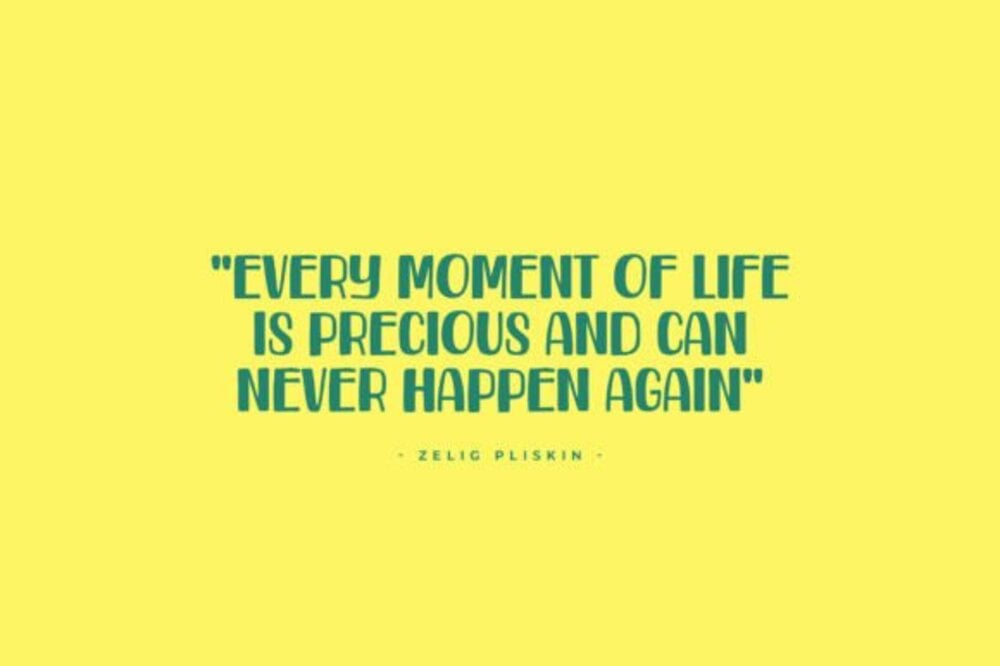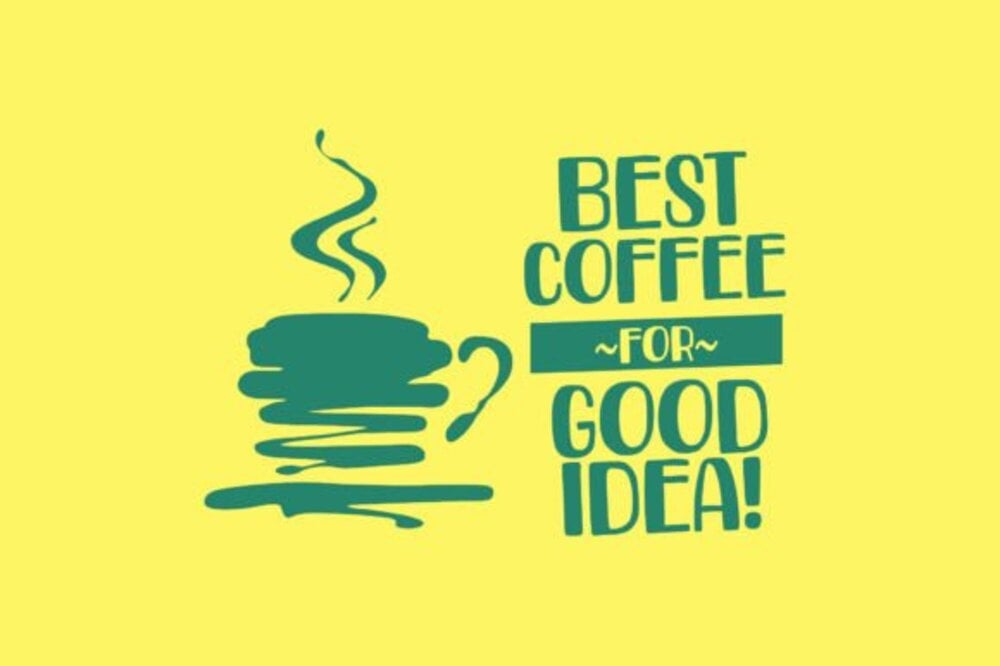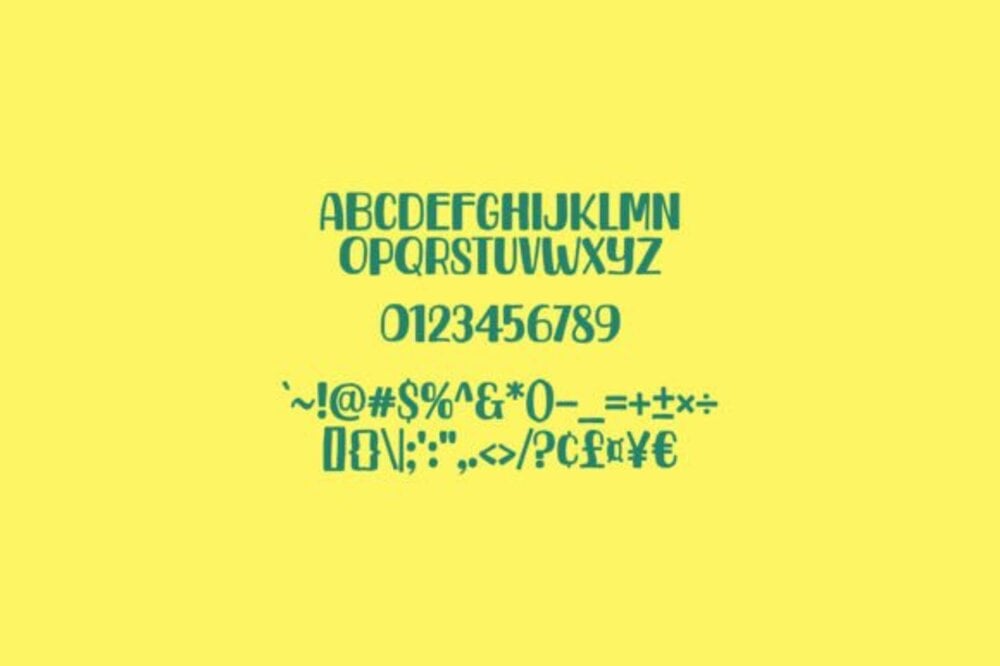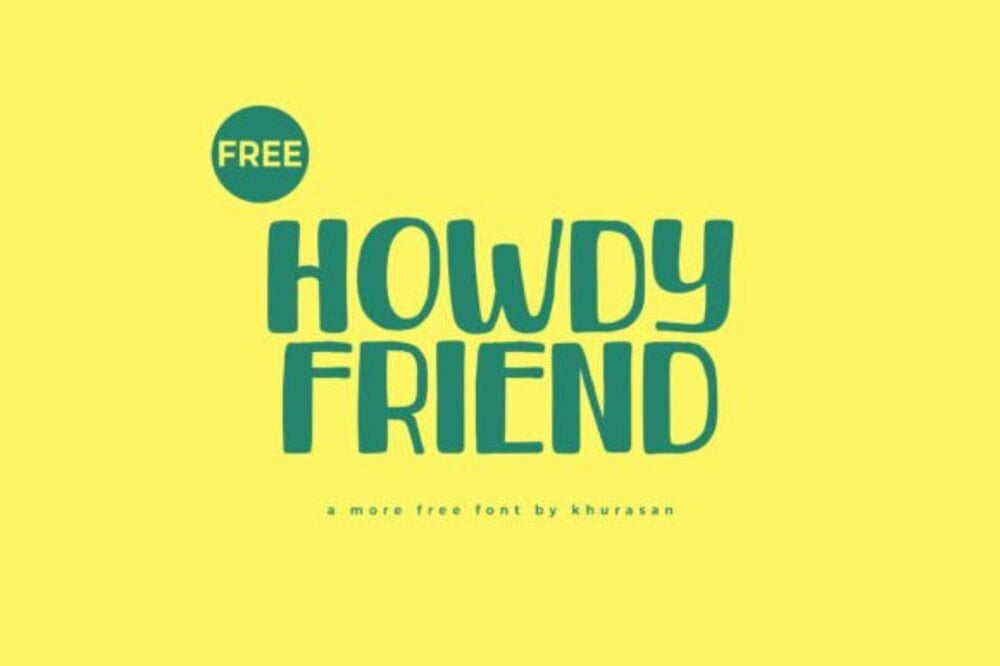
Howdy Friend Font
Howdy Friend Font bursts with a cheerful and friendly spirit, perfect for projects that need a touch of down-home charm. Its playful curves and inviting shapes evoke a sense of warmth and camaraderie, making it ideal for casual branding, social media graphics, and projects that celebrate friendship and good times. Whether you’re designing a poster for a summer festival or crafting a friendly invitation, Howdy Friend adds a touch of genuine warmth to any design.